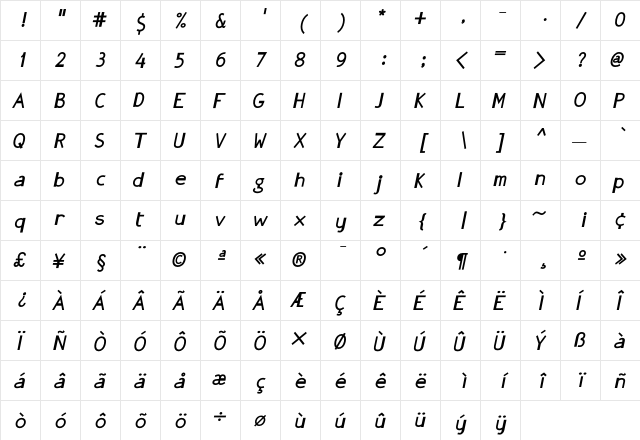
GonzaPlus BoldOblique
Design Context for GonzaPlus Typeface
GonzaPlus is a composed and adaptable typeface that performs quietly and consistently across a wide range of design contexts. Its italic angle brings a sense of urgency and motion to the letterforms. Its bold stroke weight gives it real presence on the page.
Pro Tip: Use GonzaPlus for emphasis, pull quotes, and subheadings where its slanted energy can add rhythm to the layout.